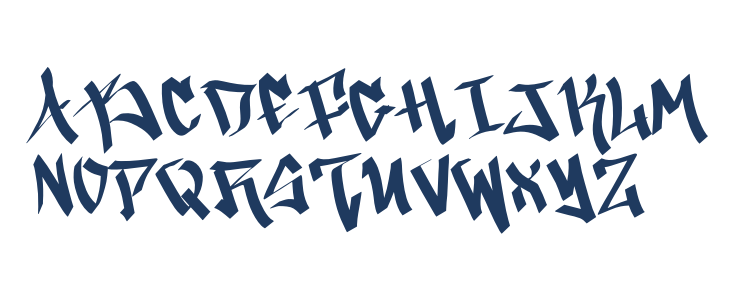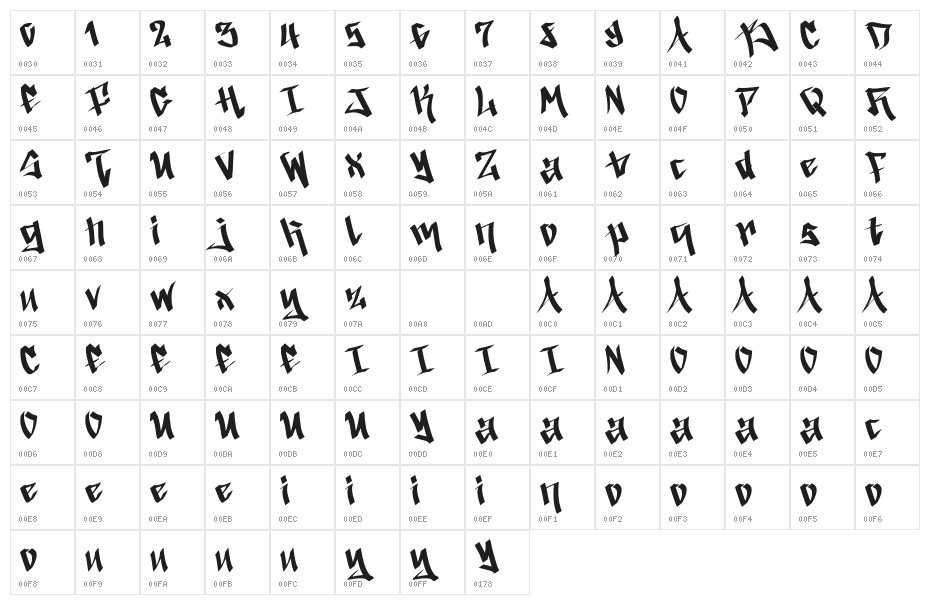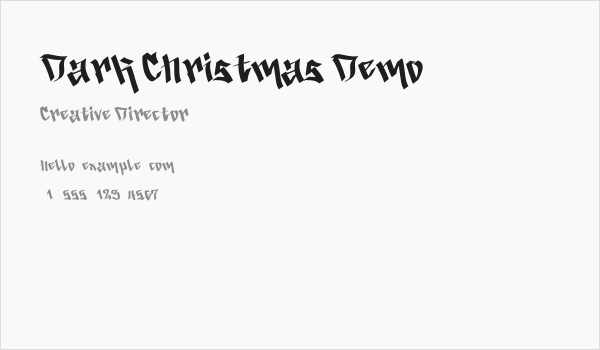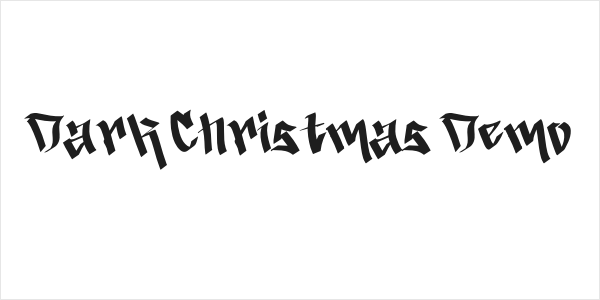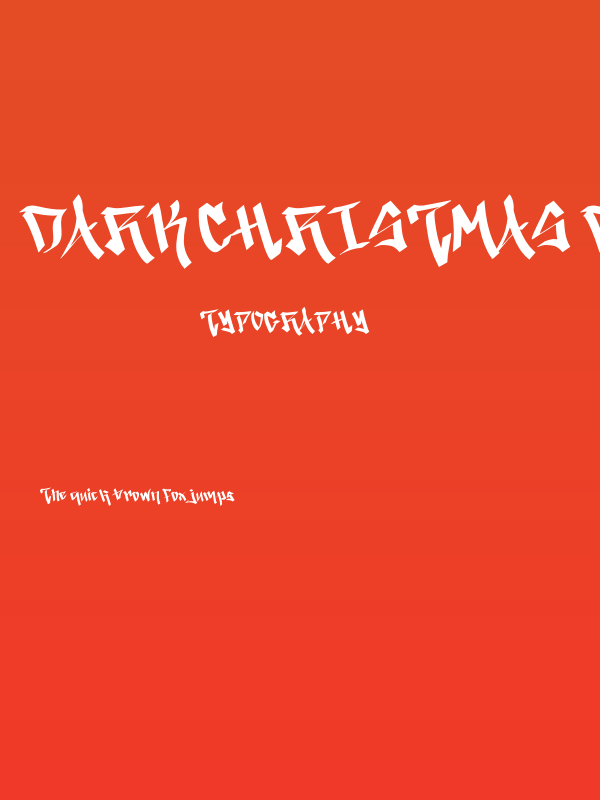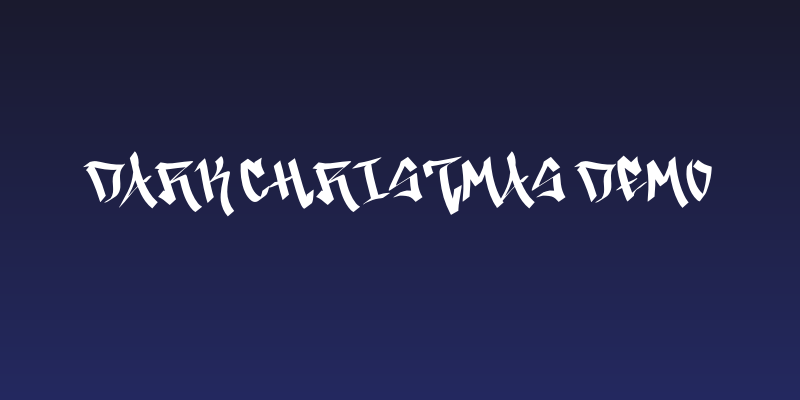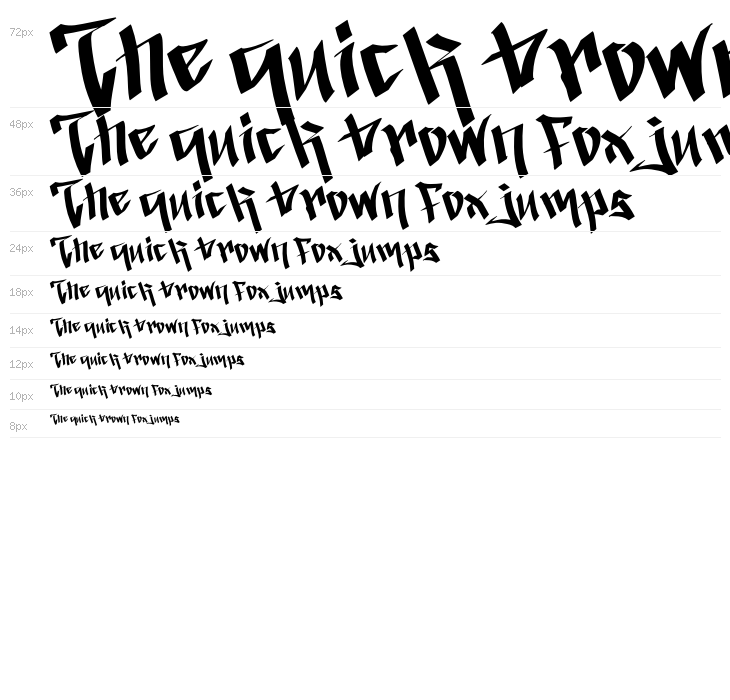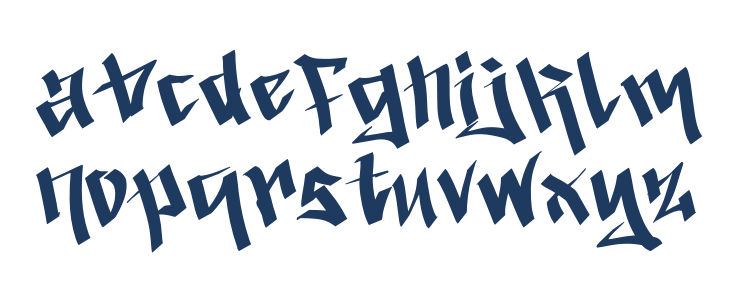
Dark Christmas Demo Font
Dark Christmas Demo Description
A bold, angular display typeface with sharp, jagged edges and a hand-drawn, gothic-inspired aesthetic. The characters feature exaggerated strokes and dramatic angles, evoking a dark, festive, and somewhat rebellious mood.
Overall StyleDecorative, Gothic, Edgy
Use CaseHeadlines, Posters, Logos, Themed Invitations
Proposed ProjectsEvent posters, horror or holiday-themed graphics, album covers, branding for alternative or edgy products.